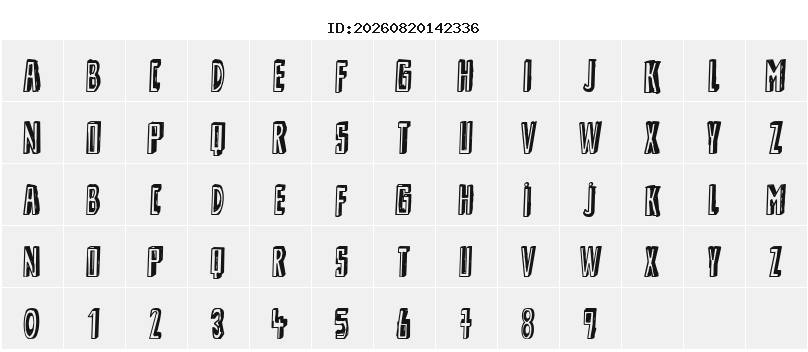
Shady Lane Preview
• Font Name: Shady Lane
• Full Font Name: Shady Lane
• Designer: paintblack
• Manufacturer: paintblack
About Shady Lane.ttf
Shady Lane.ttf is a modern, elegant sans-serif font designed for ultimate readability and visual harmony. Perfect for branding, headlines, web design, and print materials.